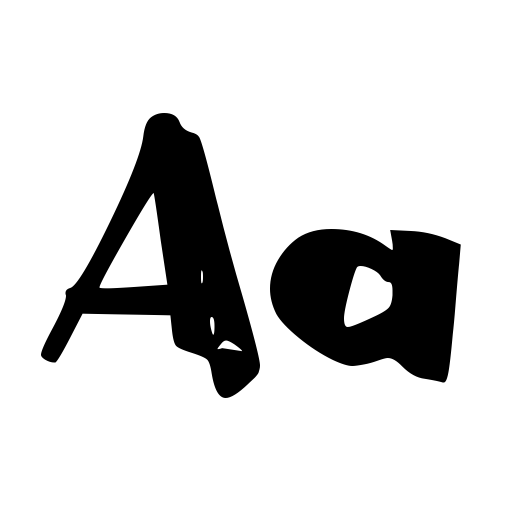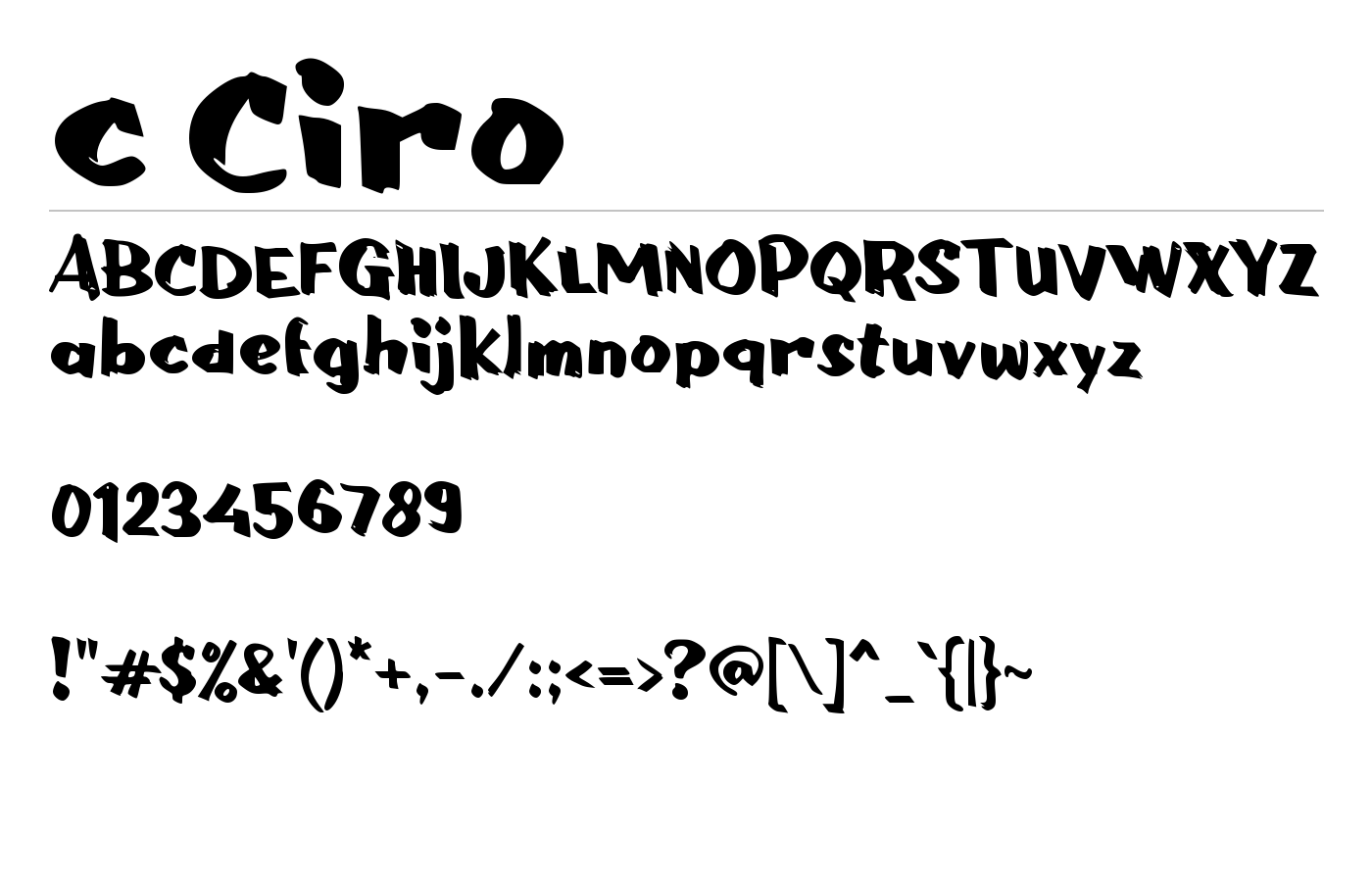
Ciro is a playful and bold display font with a handcrafted, brush-like style that brings energy and personality to any design. Its irregular shapes and lively strokes make it ideal for creative projects, children’s materials, or casual branding that seeks a fun and informal vibe. This font works well in headlines, posters, and logos where a distinctive, artistic touch is desired.
c Ciro Font
About c Ciro Font